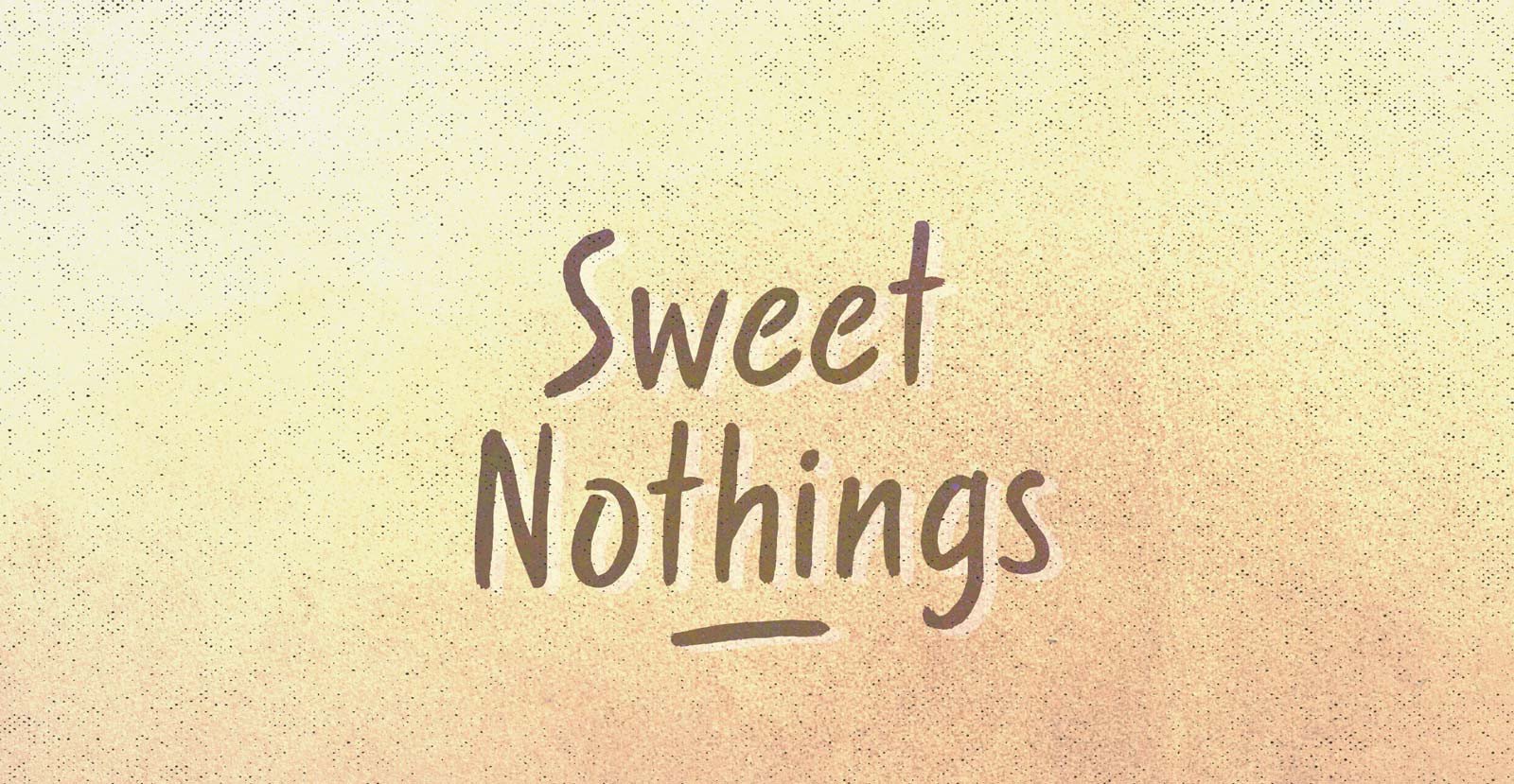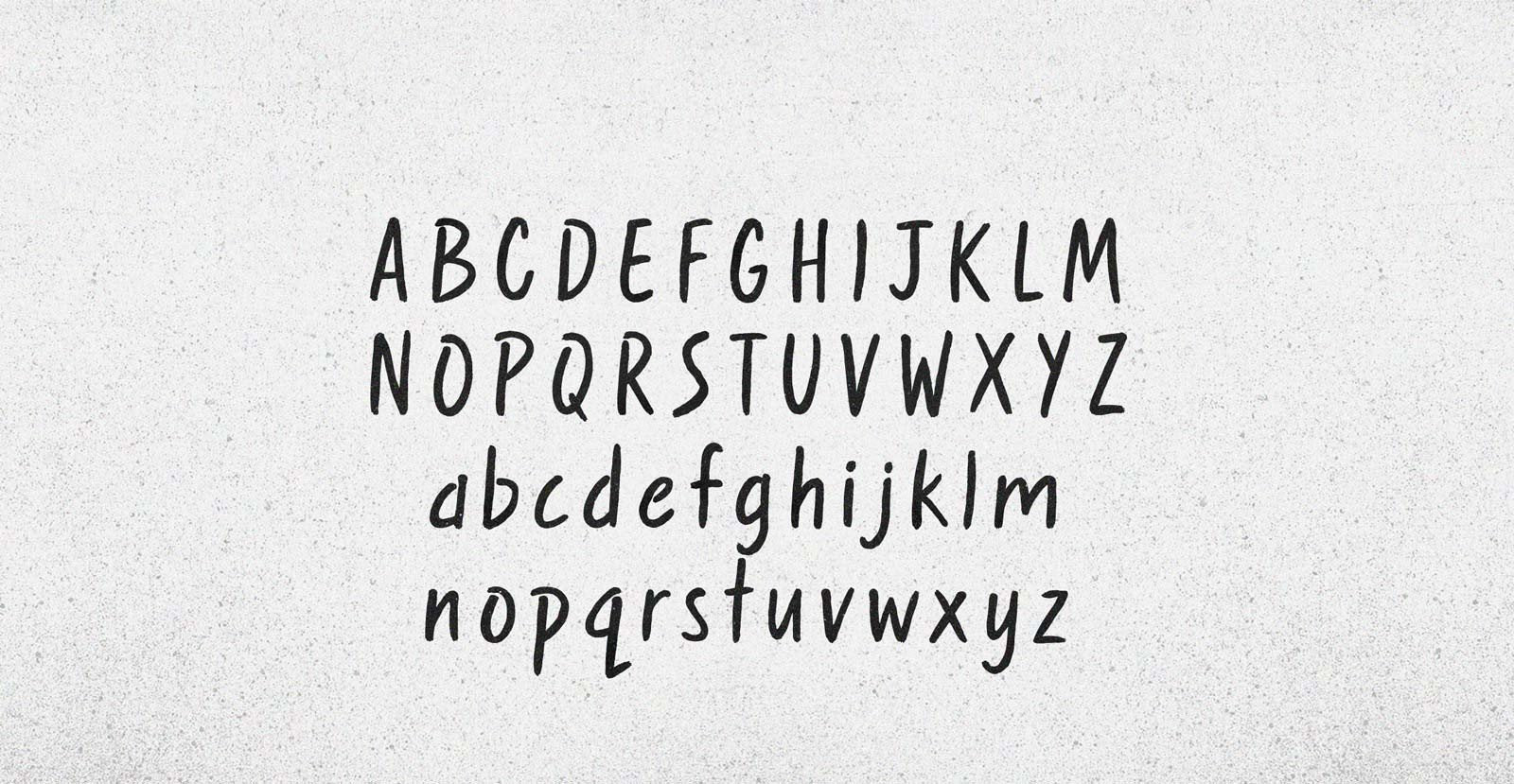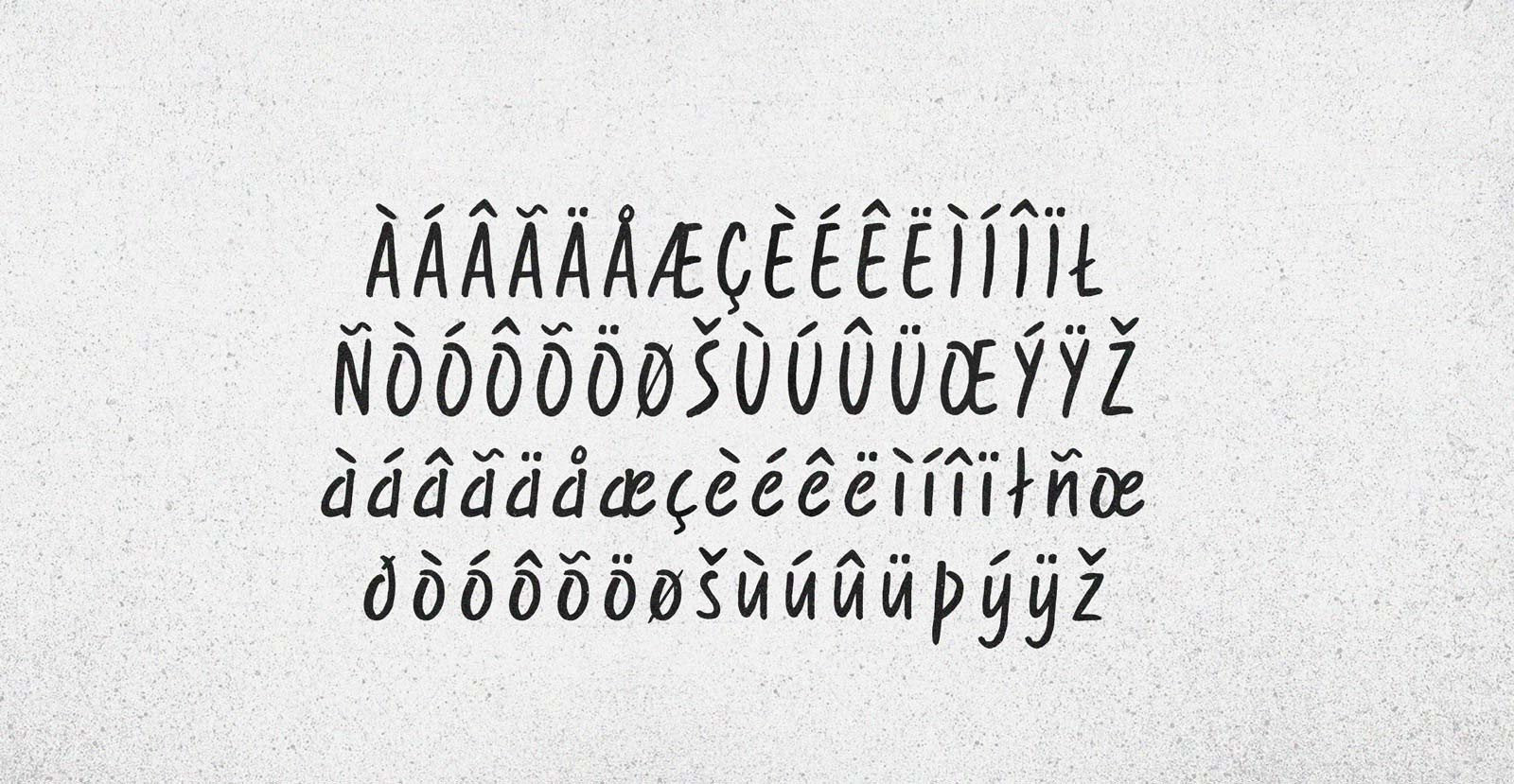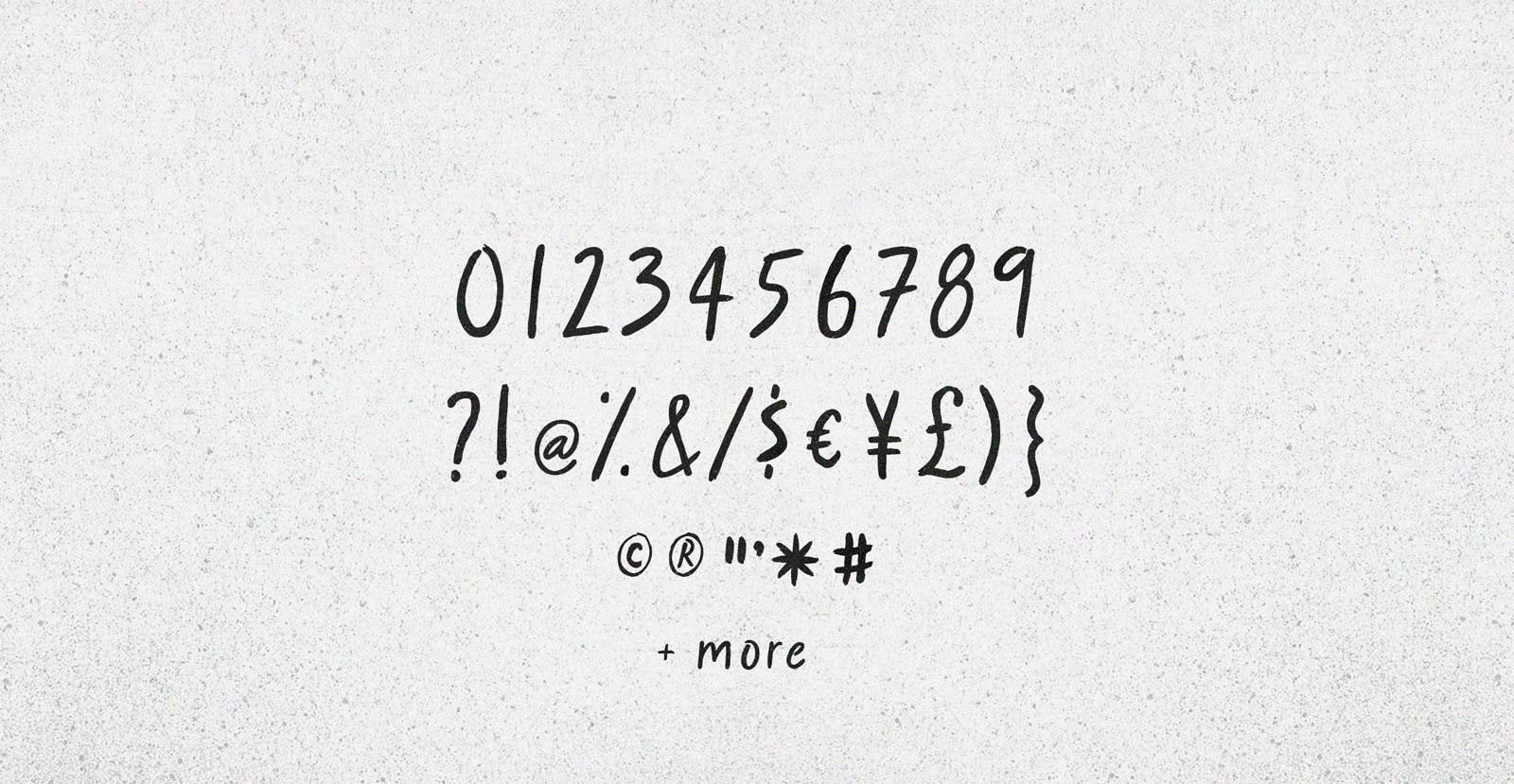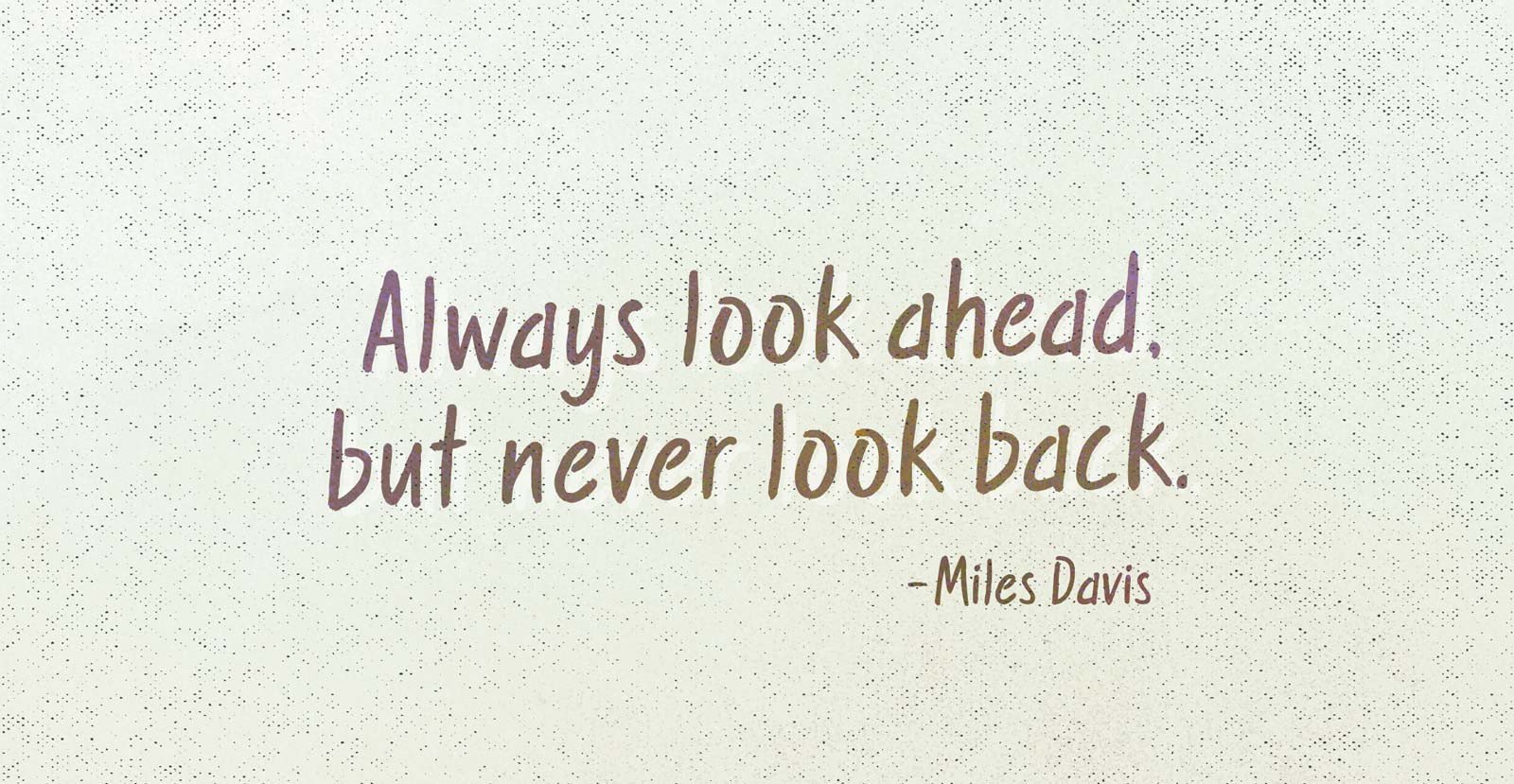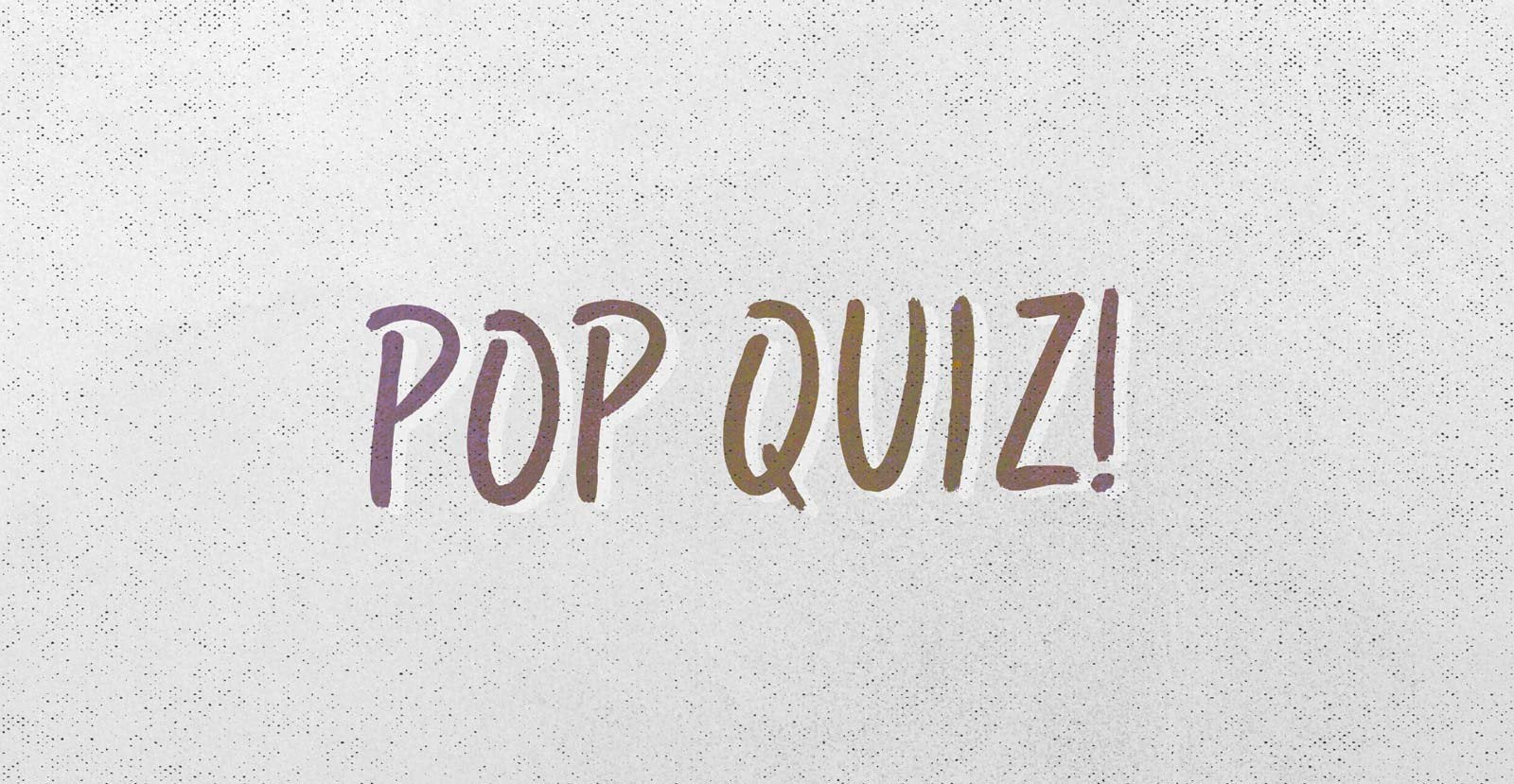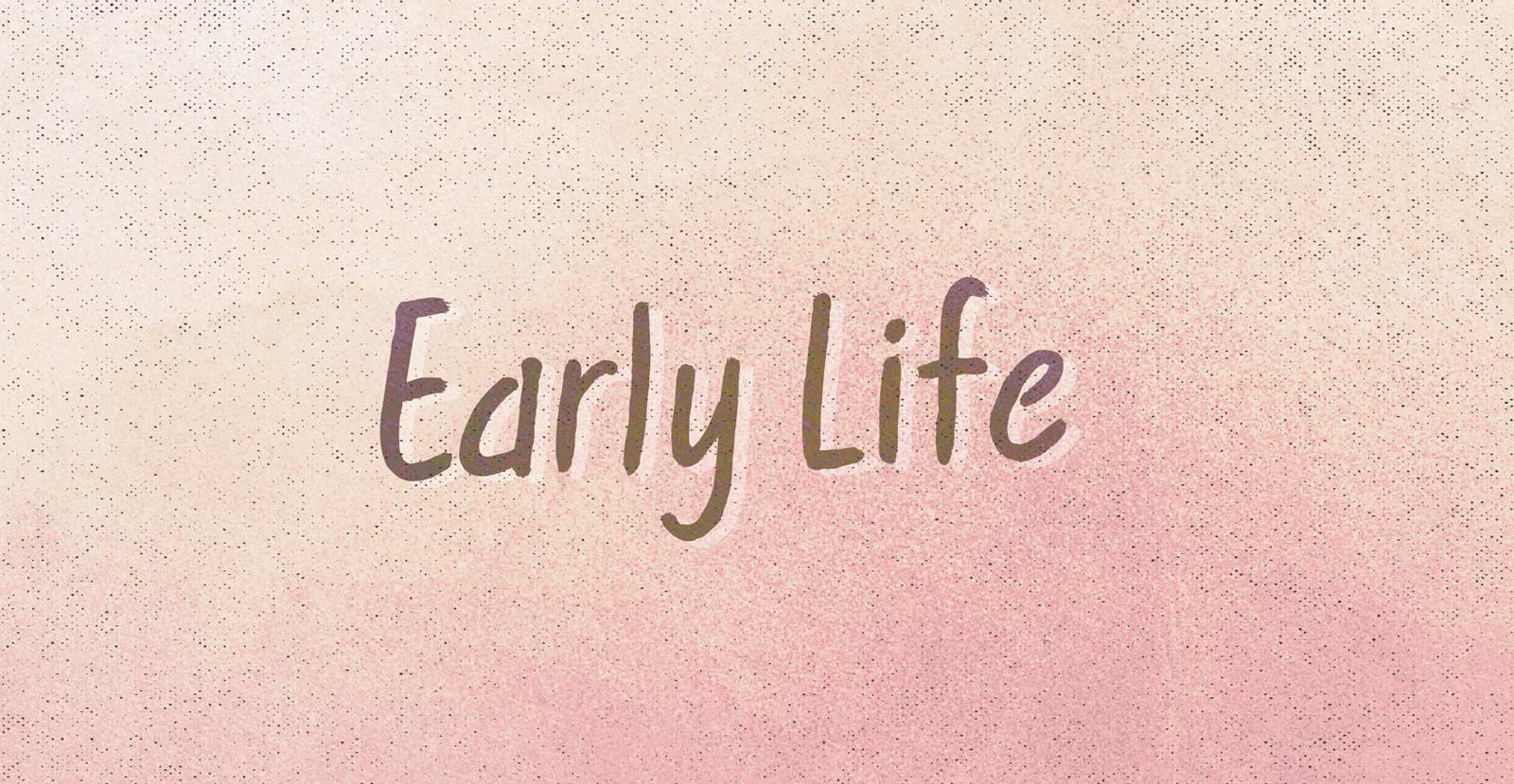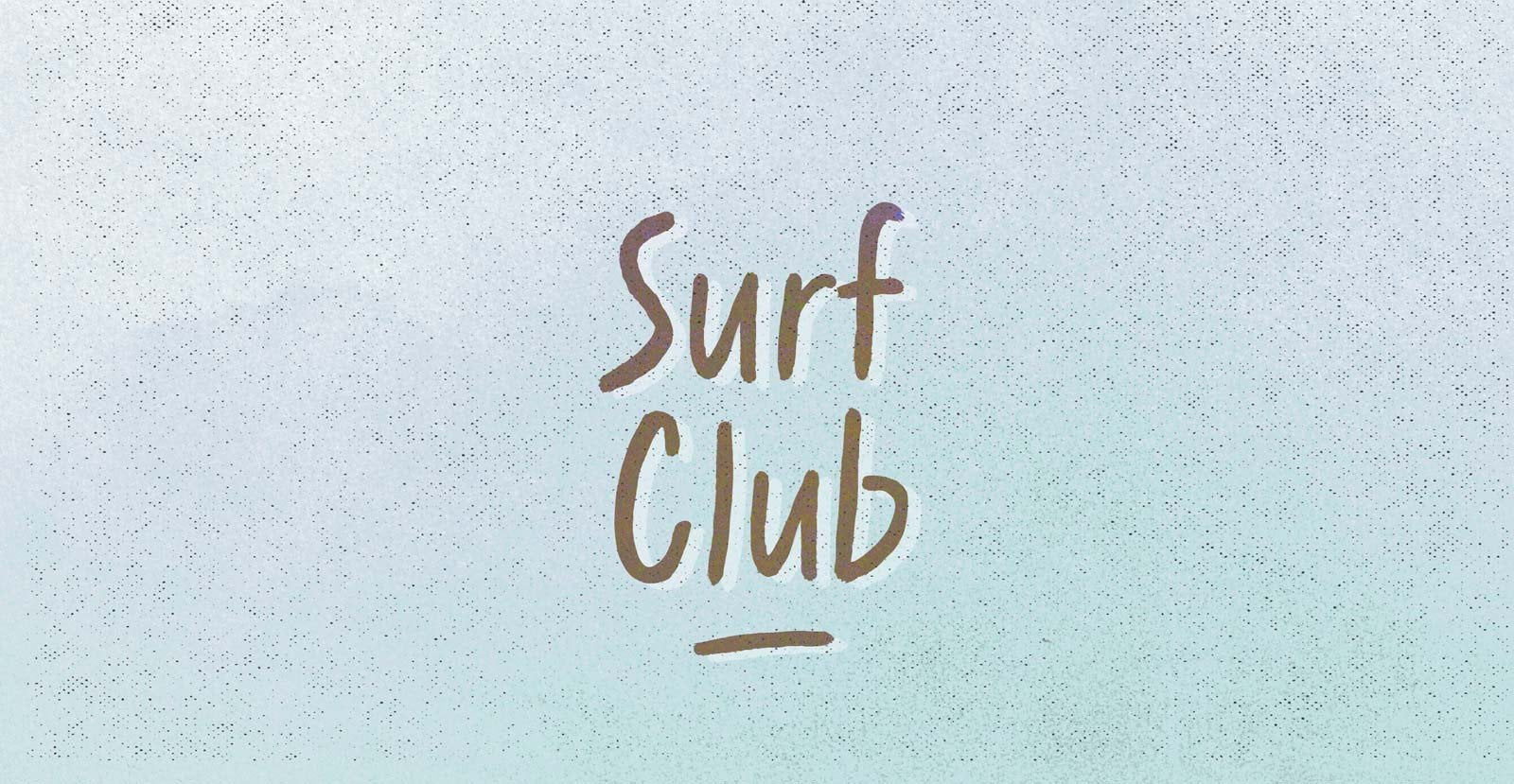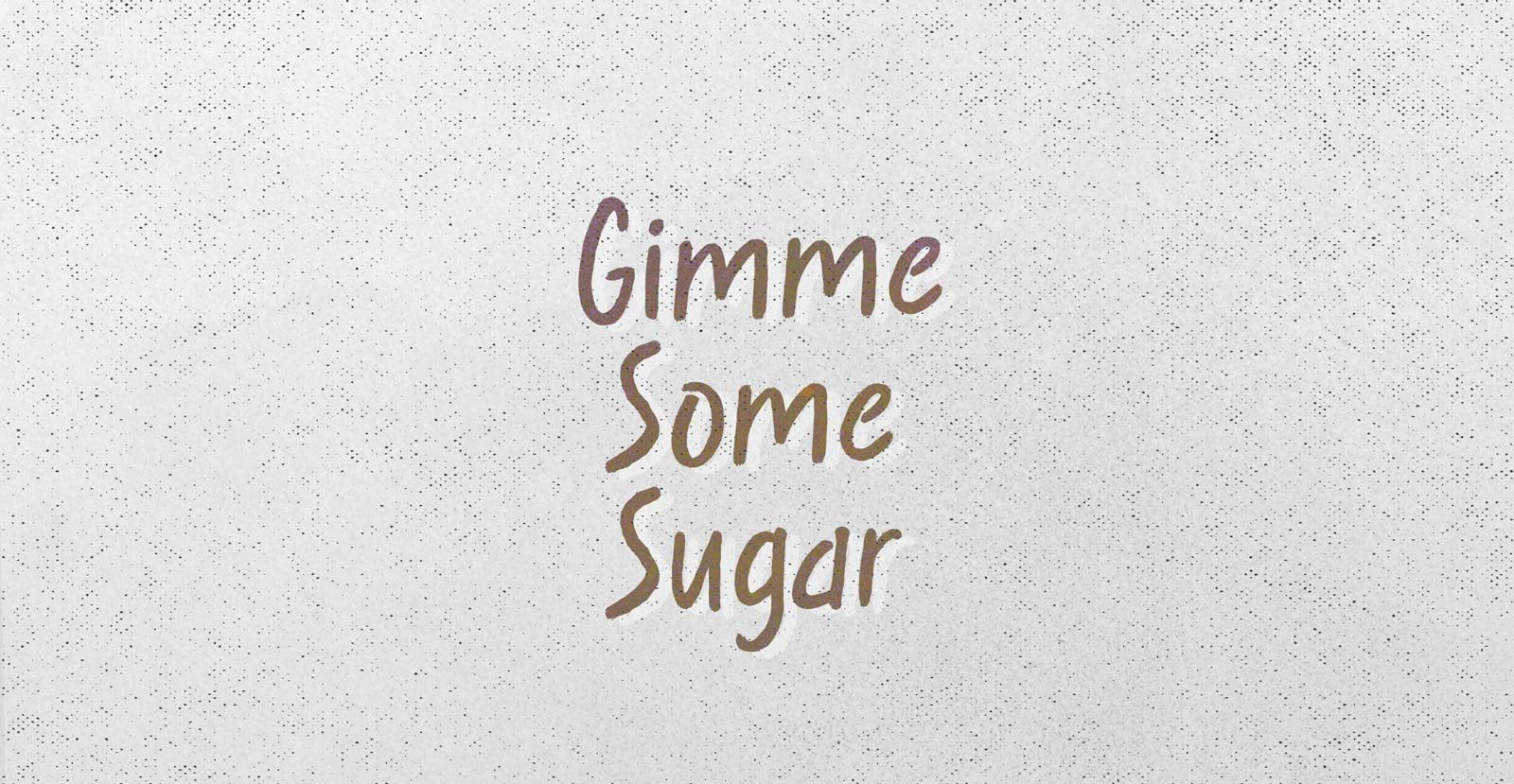
Sweet Nothings
Curled over and rolled up, warm words under blankets on November nights. What we whisper doesn't matter, language lost in the space around our necks. Sweet Nothings but a rustle and a breath, understanding all that's left.